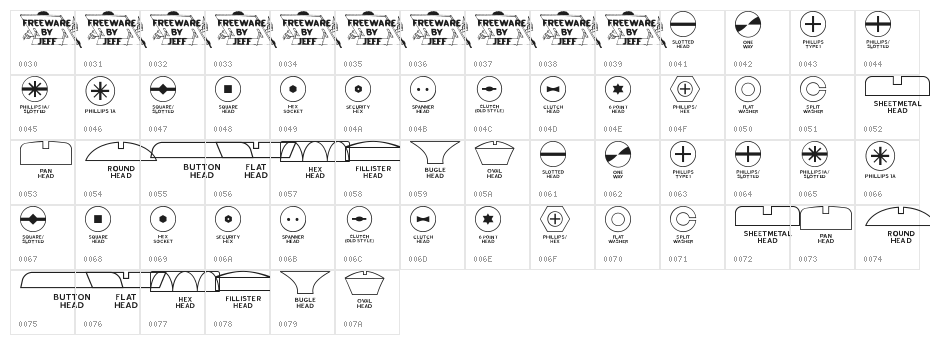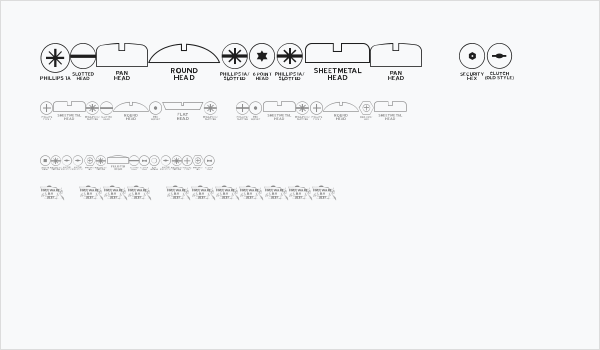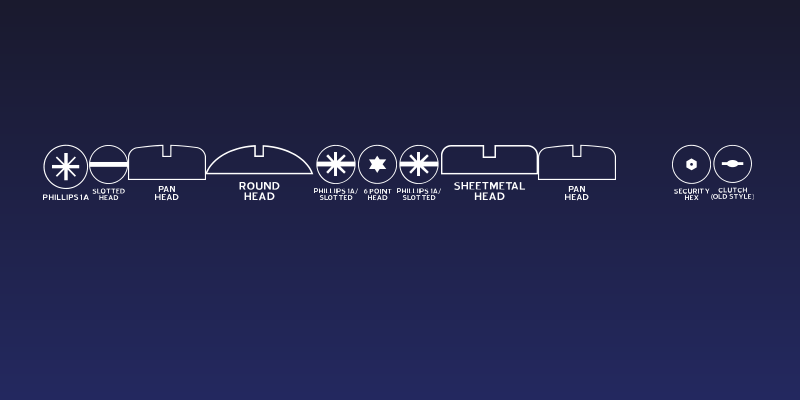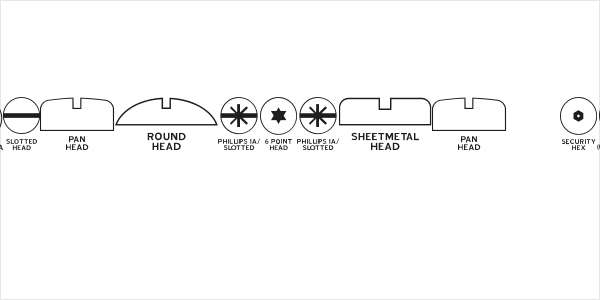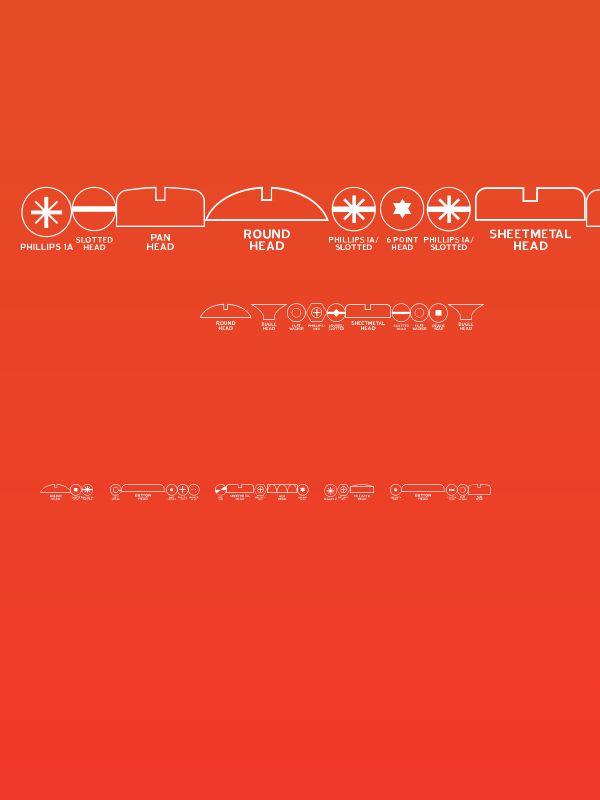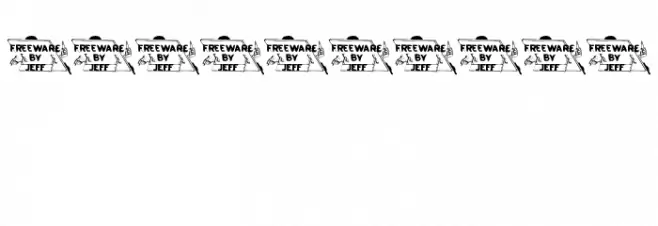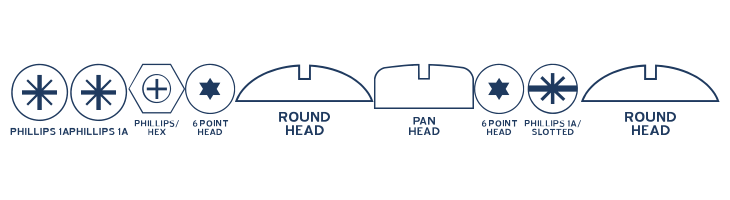
Fasteners JL Font
Fasteners JL Description
A highly specialized decorative font featuring detailed illustrations of various fastener head types, including slotted, Phillips, hex, spanner, clutch, and more. Each glyph visually represents a different screw or bolt head, with clear line work and labeled diagrams. The font also includes side profiles of fastener heads and a repeating 'Freeware by Jeff' graphic.
| Overall Style | Technical, Decorative |
| Use Case | Diagrams, Labels, Educational Materials, Display |
| Proposed Projects | Technical diagrams, instructional materials, hardware catalogs, educational posters, industrial design presentations. |